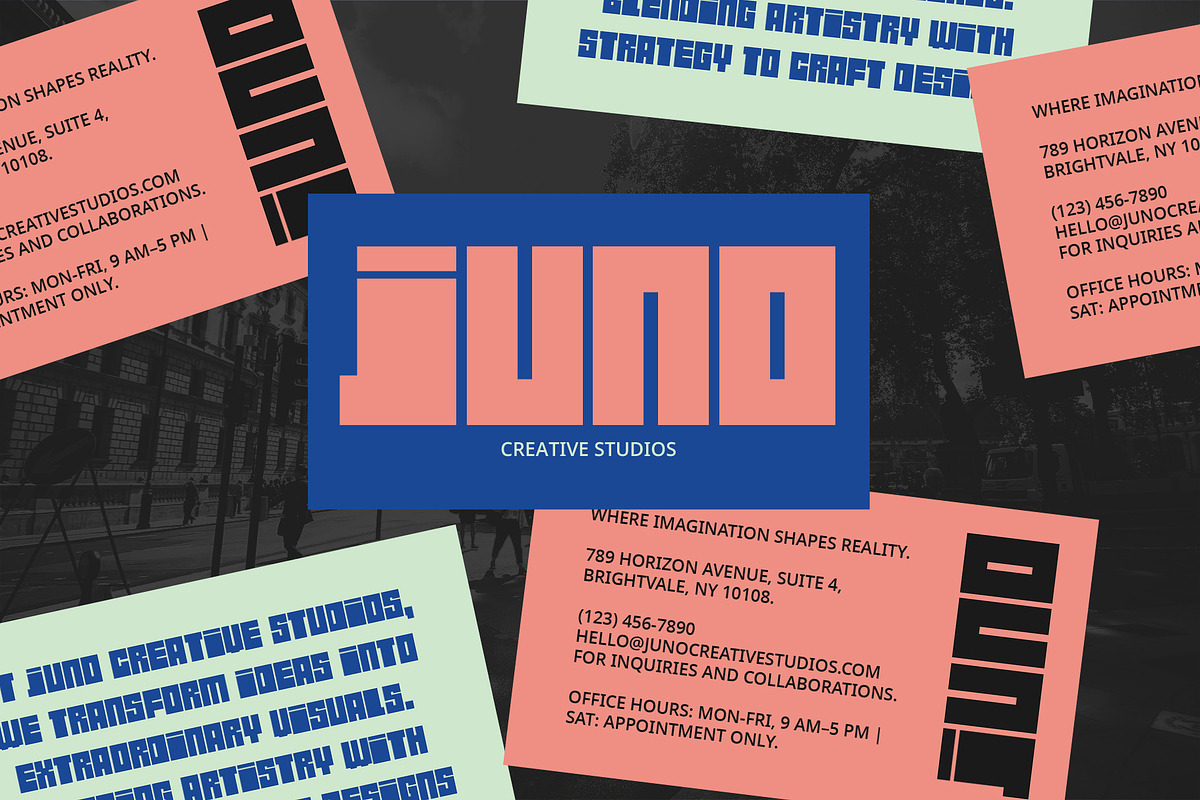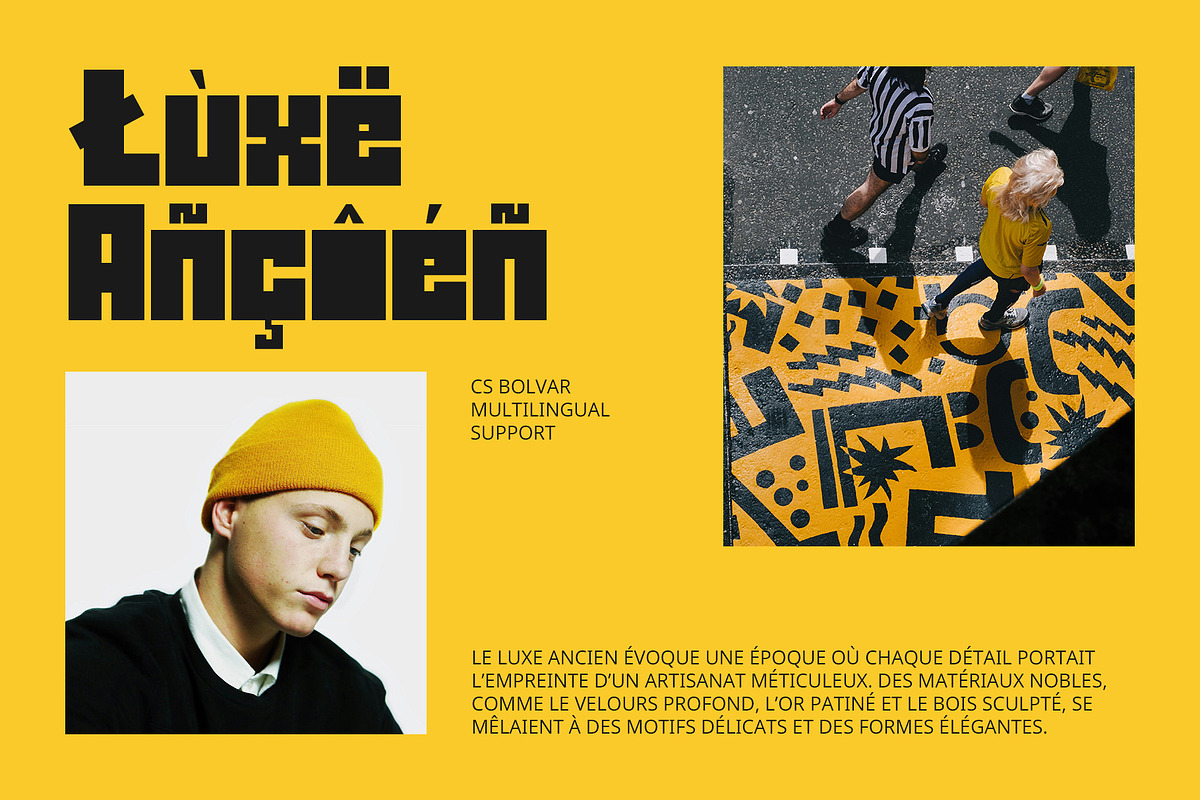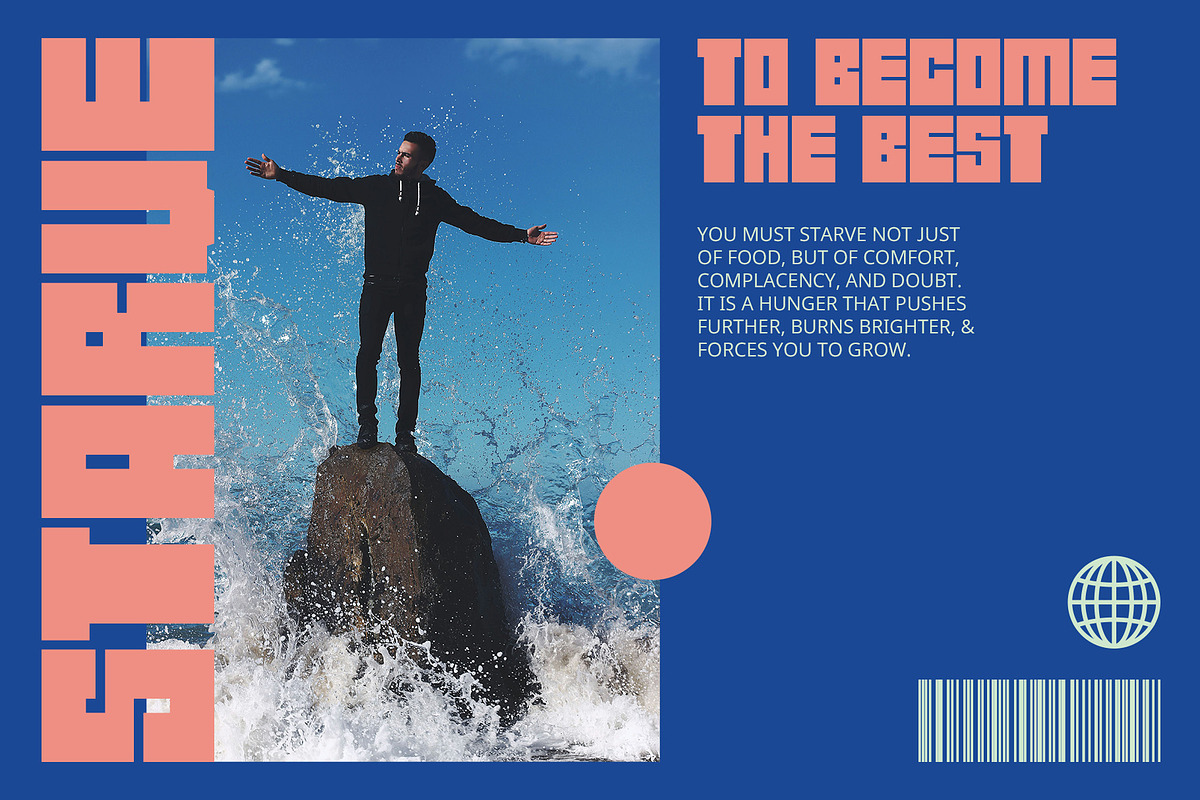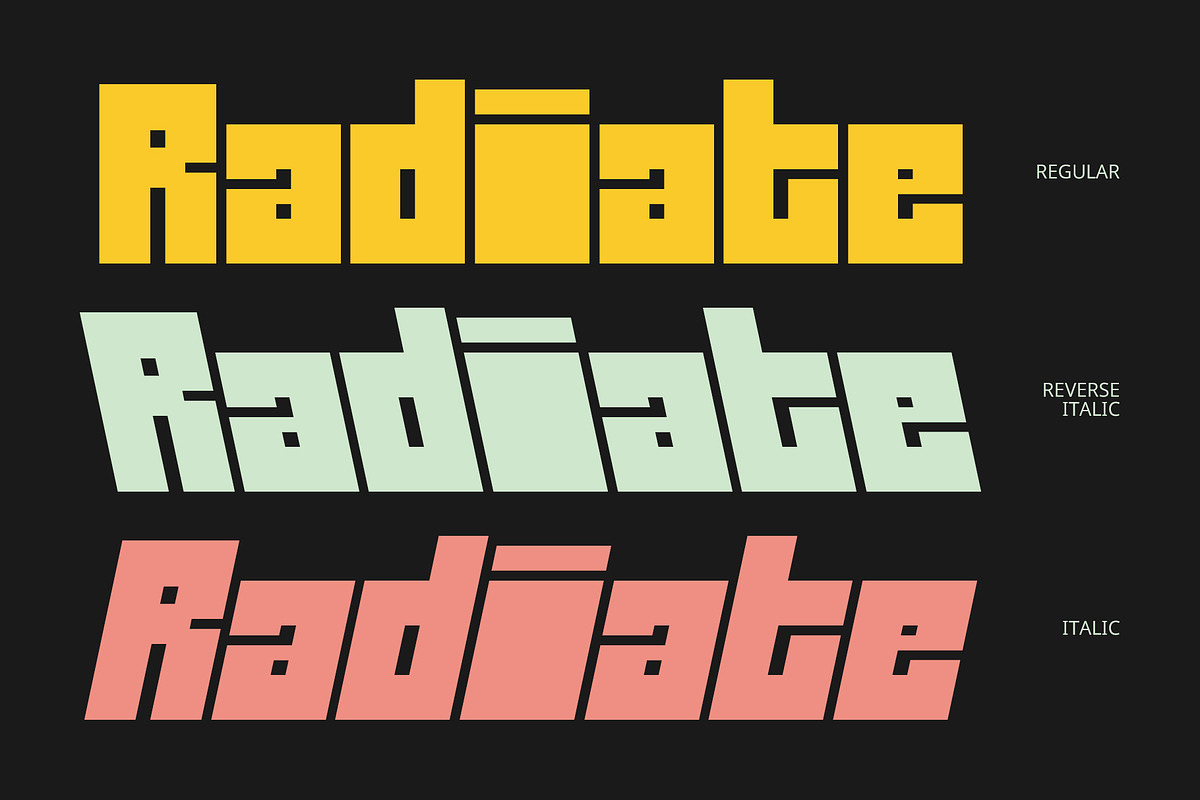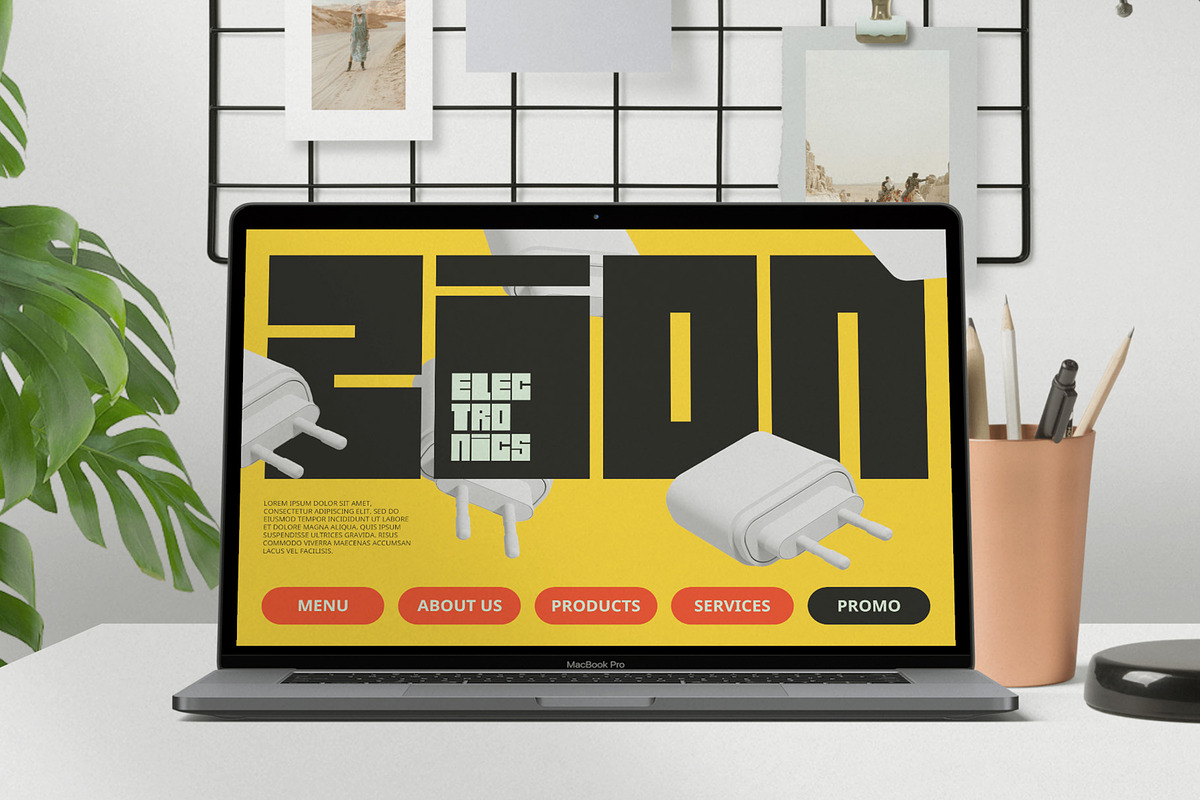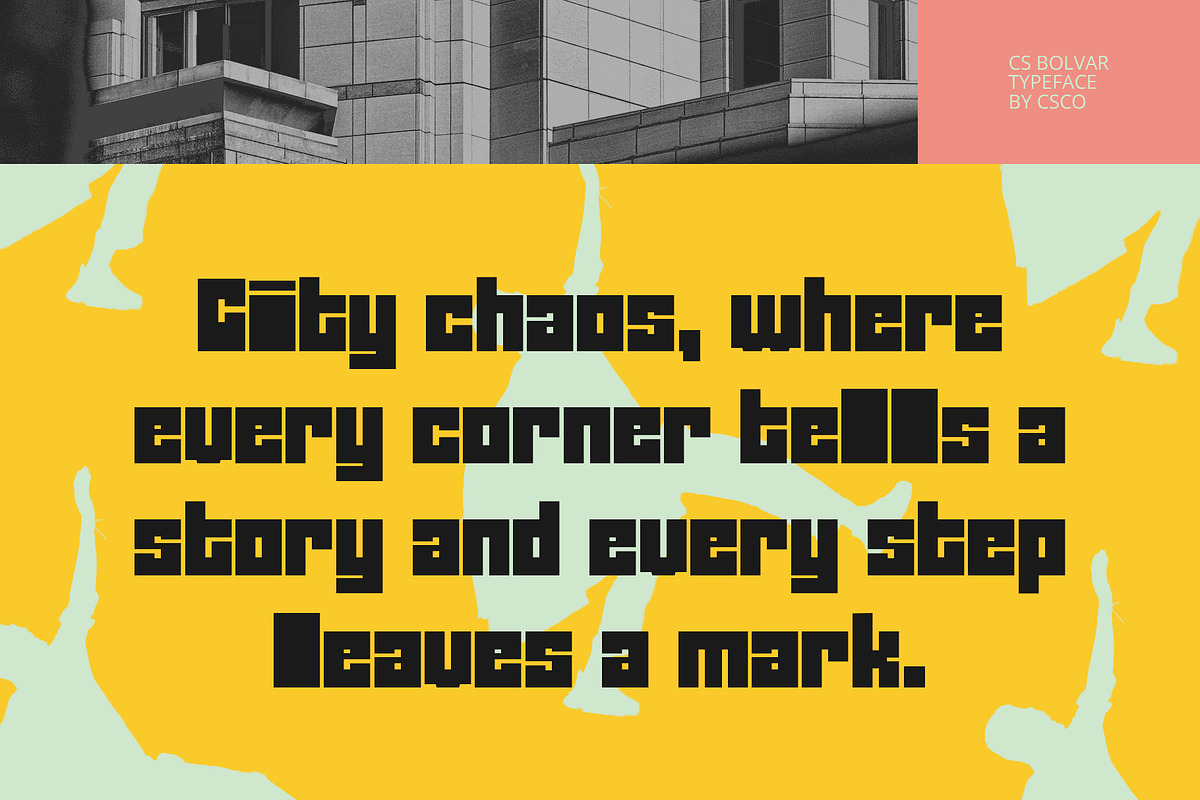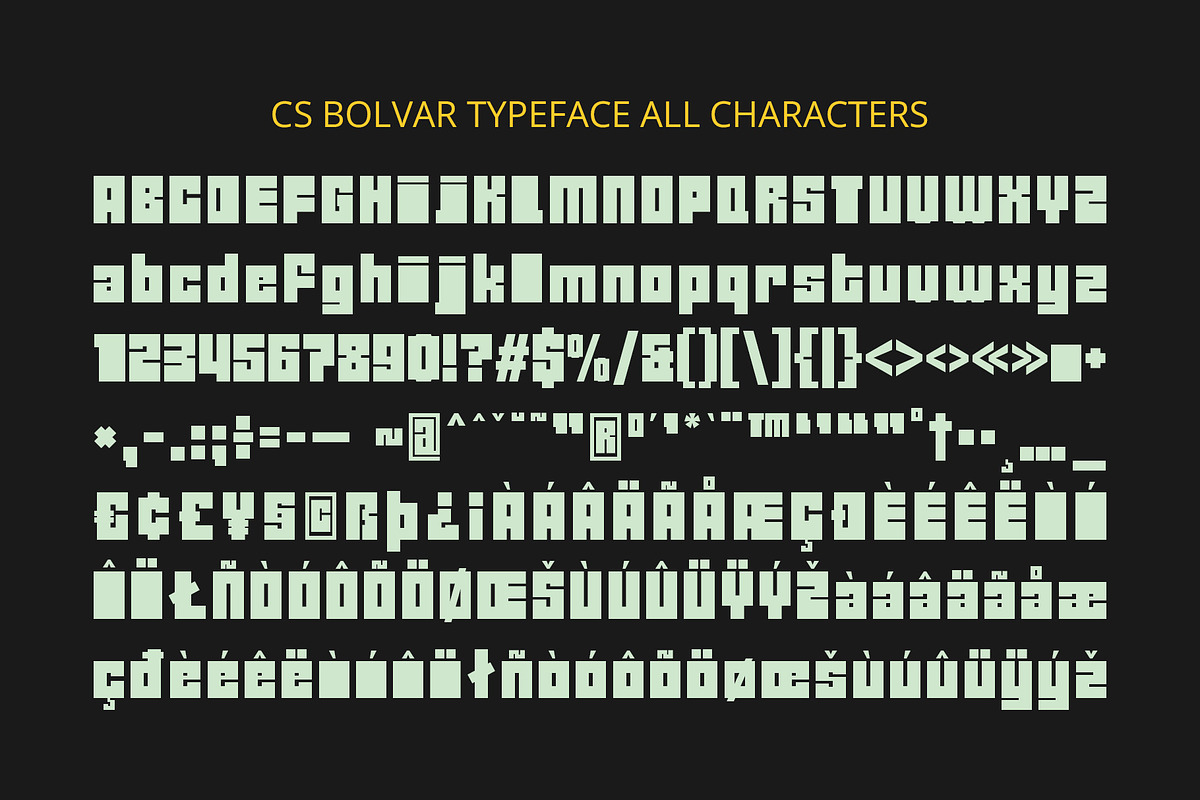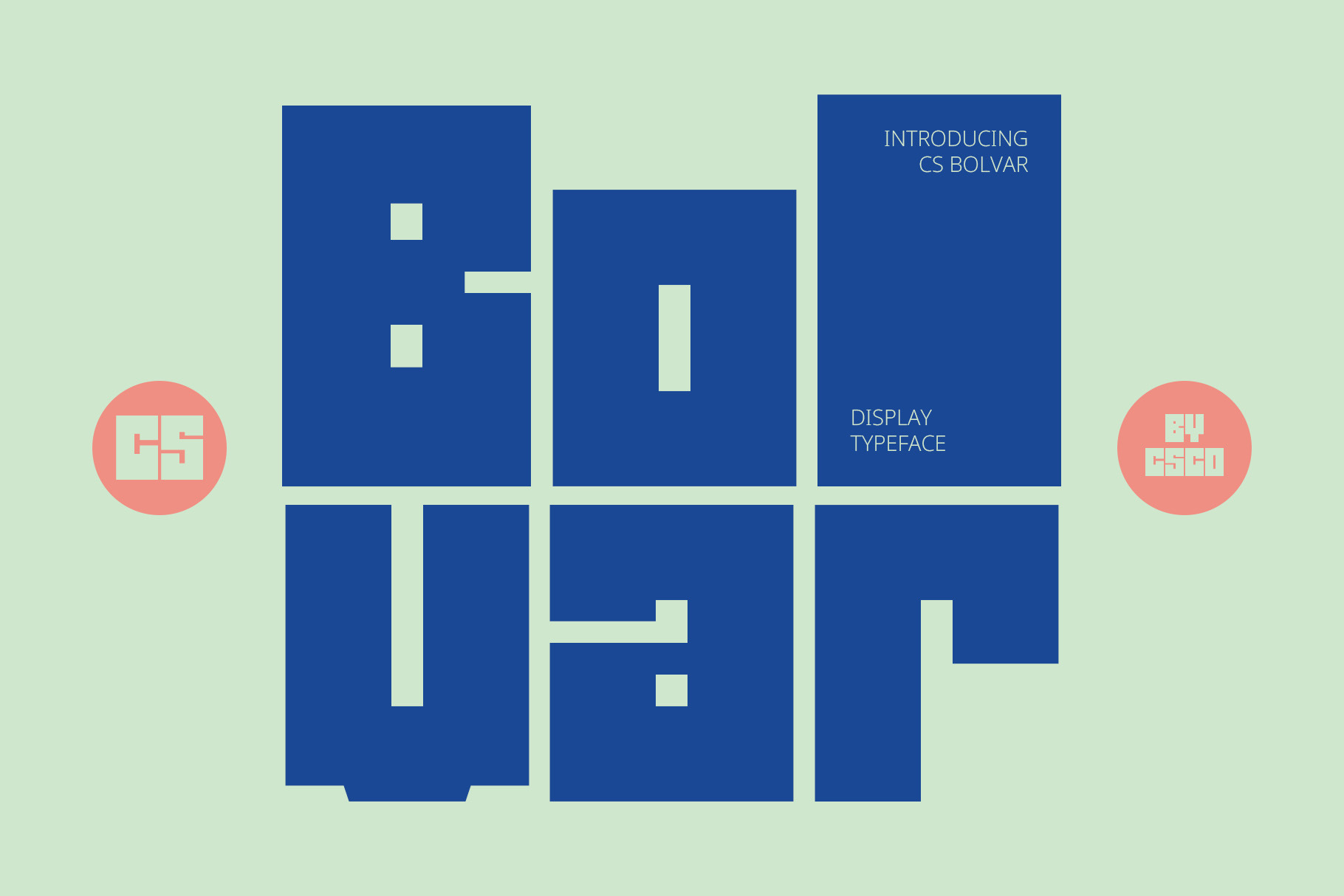
CS Bolvar – Bold Font
CS Bolvar – Bold Font: A Compact Powerhouse of Visual Impact
Bold and Condensed Display Sans Serif for Modern Design CS Bolvar is a contemporary sans-serif display font defined by its robust bold weight and efficient condensed form. This unique combination results in a typeface that commands attention while maximizing space, making it an invaluable asset for designs seeking both impact and efficiency.
Unwavering Emphasis with a Powerful Bold Weight The substantial bold weight of CS Bolvar delivers a commanding presence, ensuring that text projects a strong and confident message. This characteristic makes it ideally suited for titles, headlines, branding, and any design element that requires immediate recognition and visual dominance.
Strategic Space Optimization through Condensed Form The condensed form of CS Bolvar offers significant advantages in terms of space management without sacrificing legibility. By strategically compressing letter widths, it allows for a greater volume of text to be accommodated within confined areas. This feature proves particularly beneficial for designs with limited space, such as mobile interfaces, website headers, and compact print layouts.
Versatile Applications Across Diverse Design Landscapes The concise and compact nature of CS Bolvar, coupled with its powerful visual presence, renders it adaptable to a broad spectrum of design applications. From impactful posters and eye-catching advertisements to clean and modern digital user interfaces, this font delivers a contemporary and striking aesthetic.
- CS Bolvar Regular
- CS Bolvar Italic
- CS Bolvar Reverse Italic